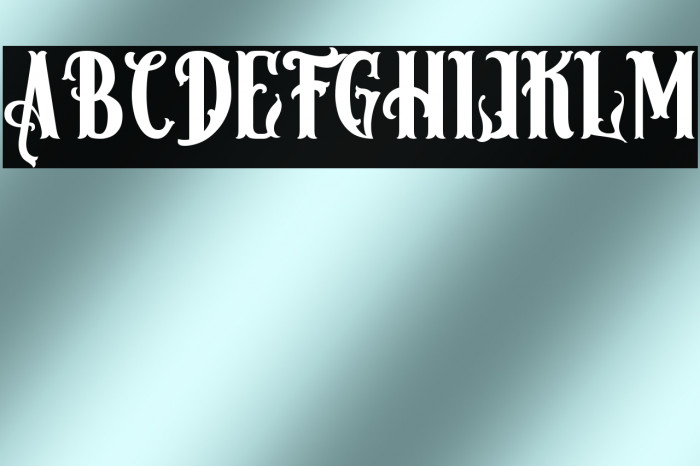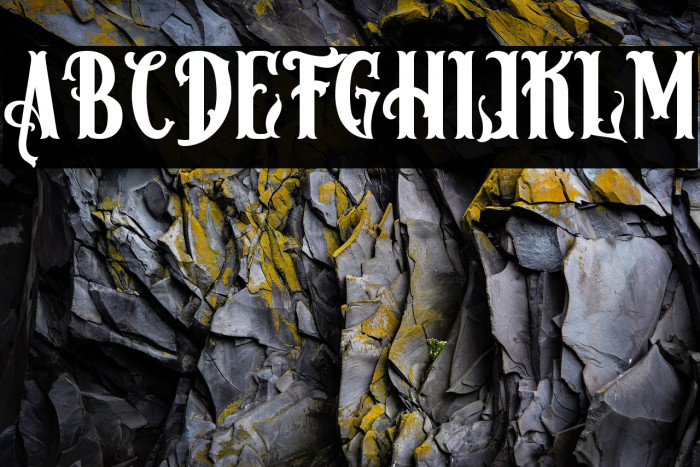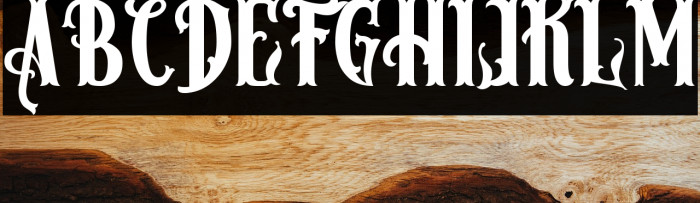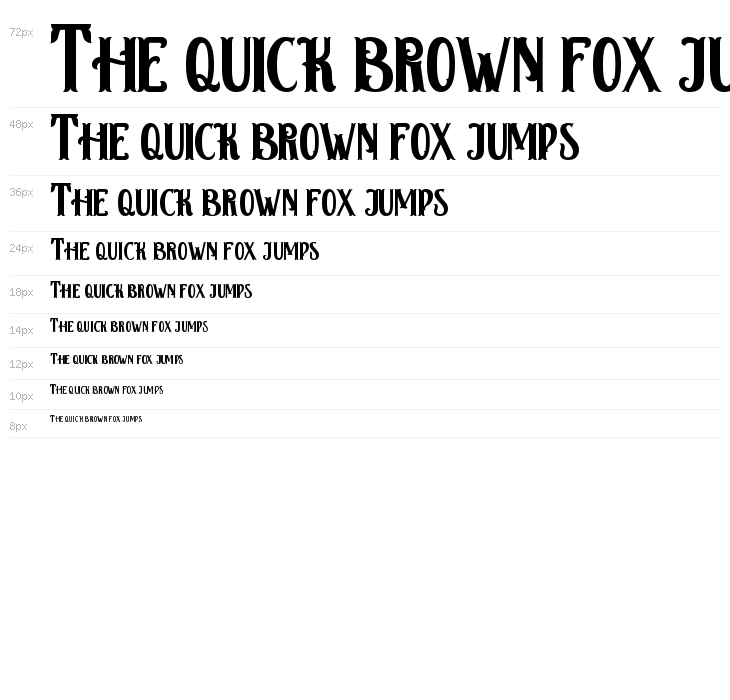
Hamburg Regular Font
Hamburg Regular Description
This font features a bold and decorative style with a strong presence. The uppercase letters are characterized by intricate serifs and flourishes, giving them a vintage and ornate appearance. The lowercase letters maintain a consistent style, complementing the uppercase with similar decorative elements. The numerals are bold and easily readable, while the special characters are designed to match the overall aesthetic. The font's unique style makes it stand out, suitable for projects that require a touch of elegance and historical charm.
| Overall Style | Vintage, Decorative |
| Proposed Projects | Ideal for vintage posters, branding, invitations, and decorative headlines. |